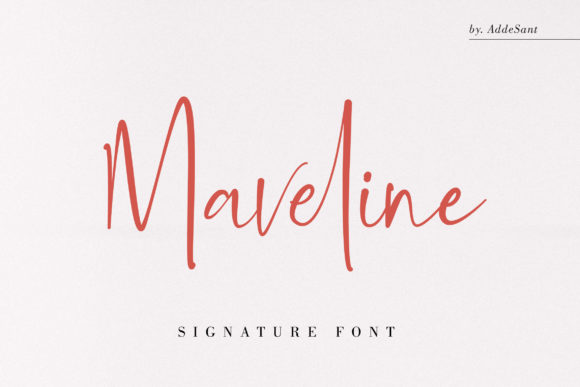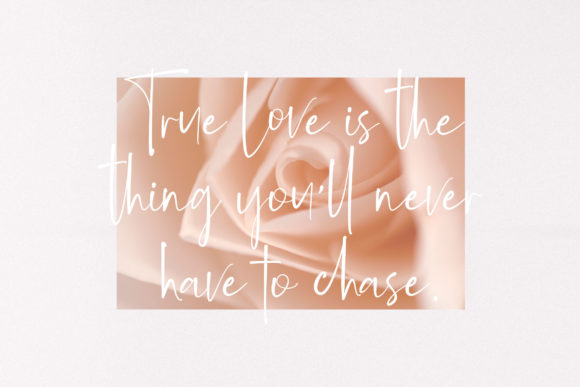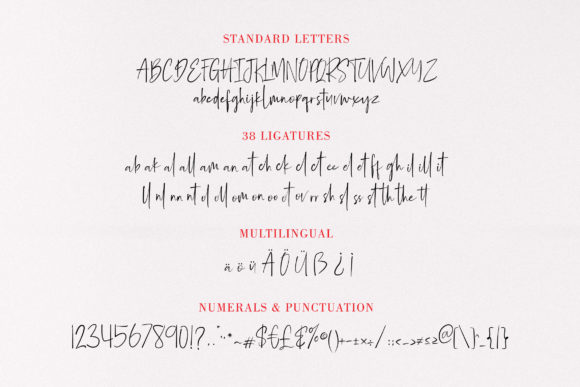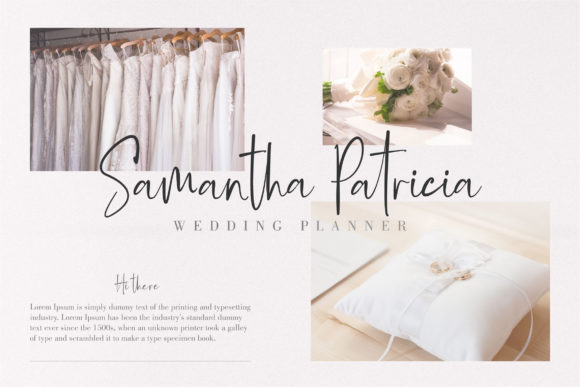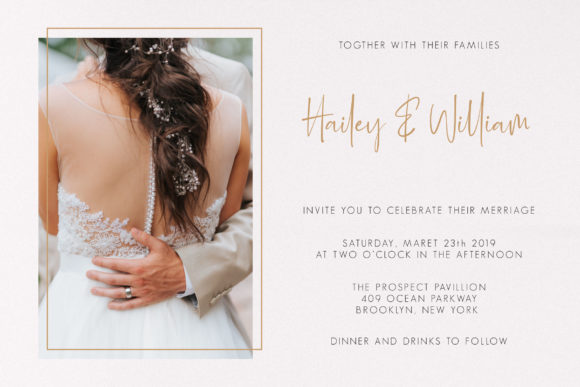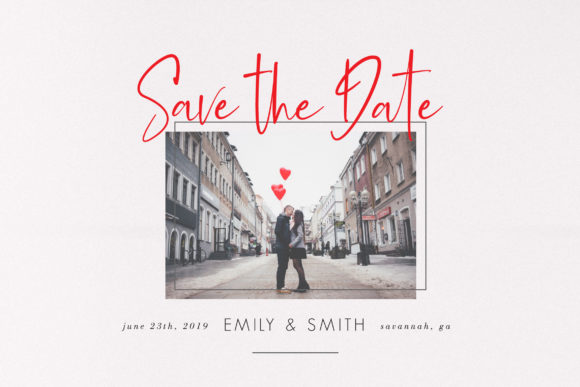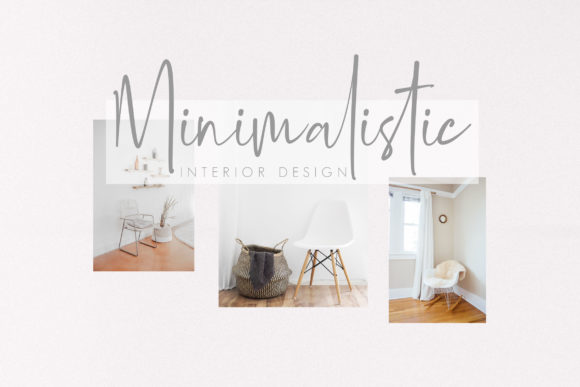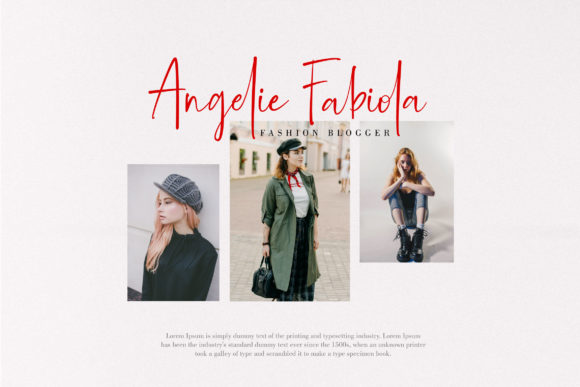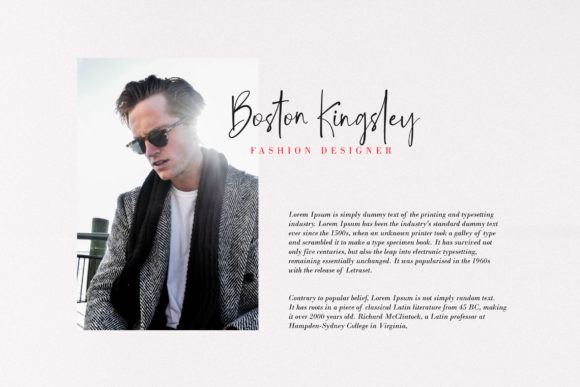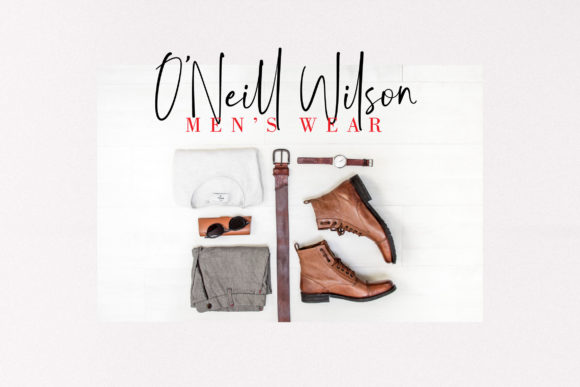
Maveline Font
About Maveline Font
The Maveli is a messy, feminine, carefree script that is perfect for logos, posters, signage, and more! It includes amazing ligatures for a totally unique hand-written feel!